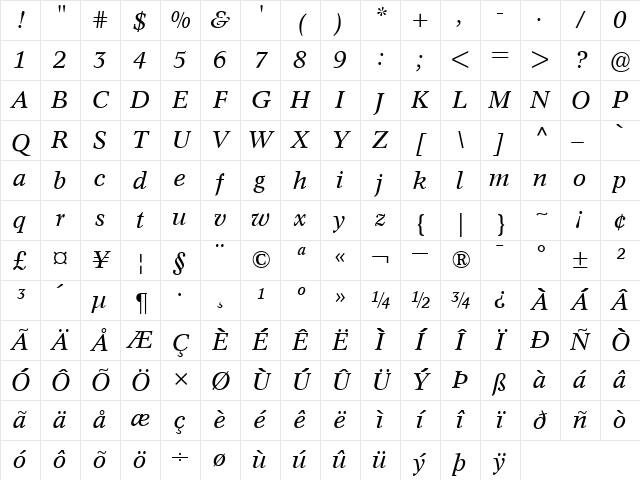
ConcordeBE RomanItalic Free Font
ConcordeBE RomanItalic
Style: RomanItalic
Design Context for ConcordeBE
ConcordeBE is a composed and adaptable typeface that performs quietly and consistently across a wide range of design contexts. The slanted form adds forward momentum and visual energy.
Pro Tip: Use ConcordeBE for emphasis, pull quotes, and subheadings where its slanted energy can add rhythm to the layout.